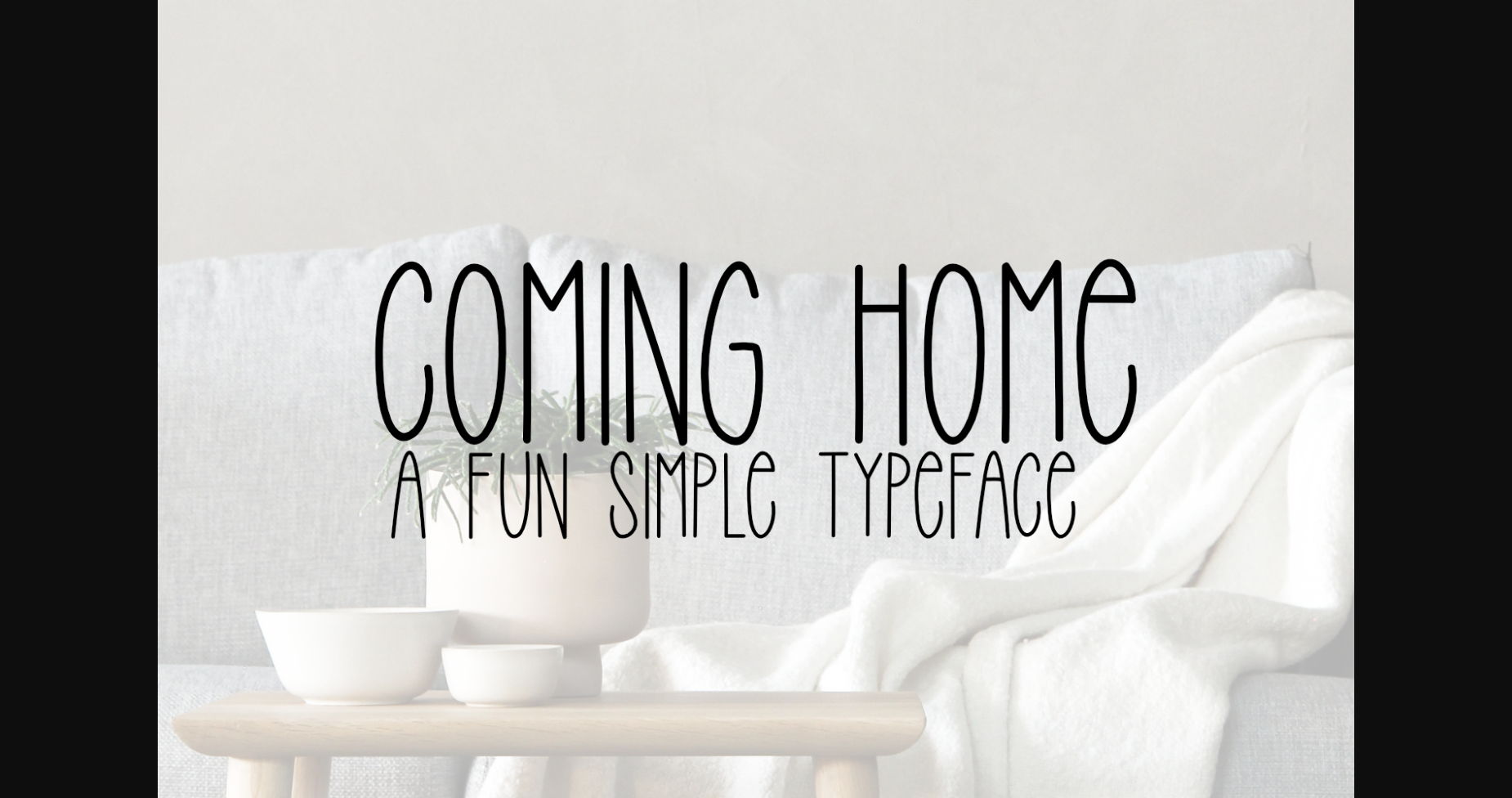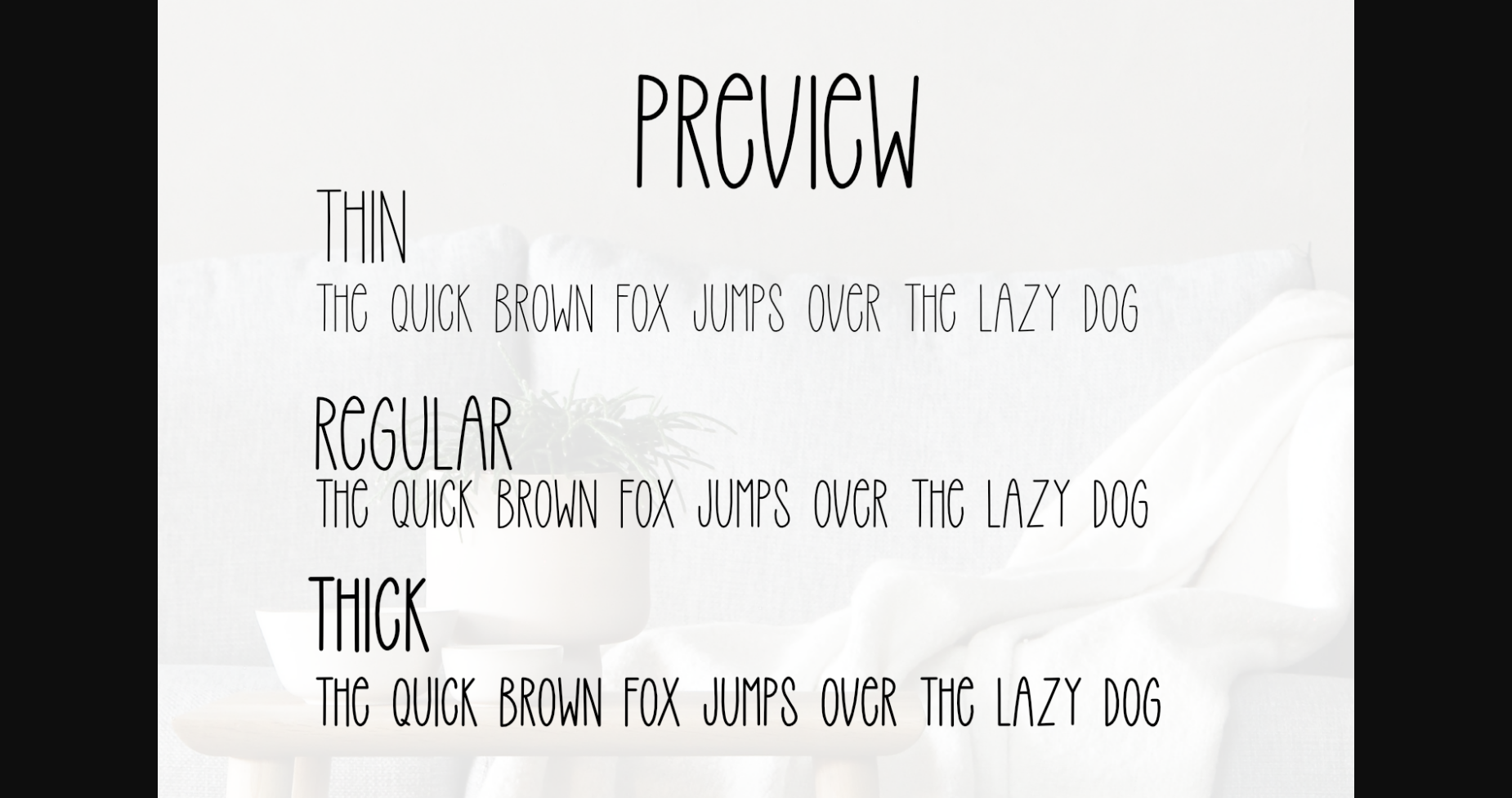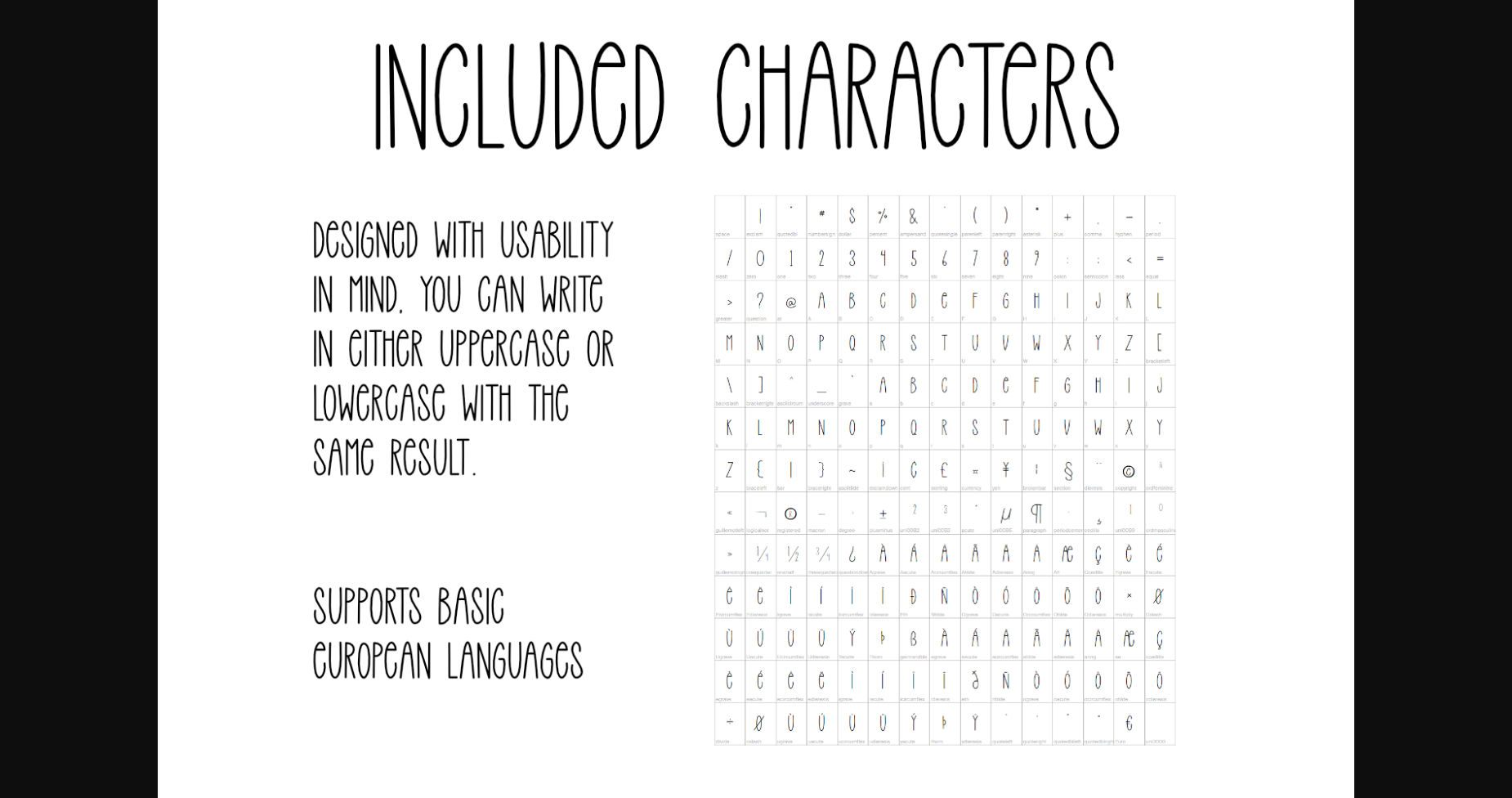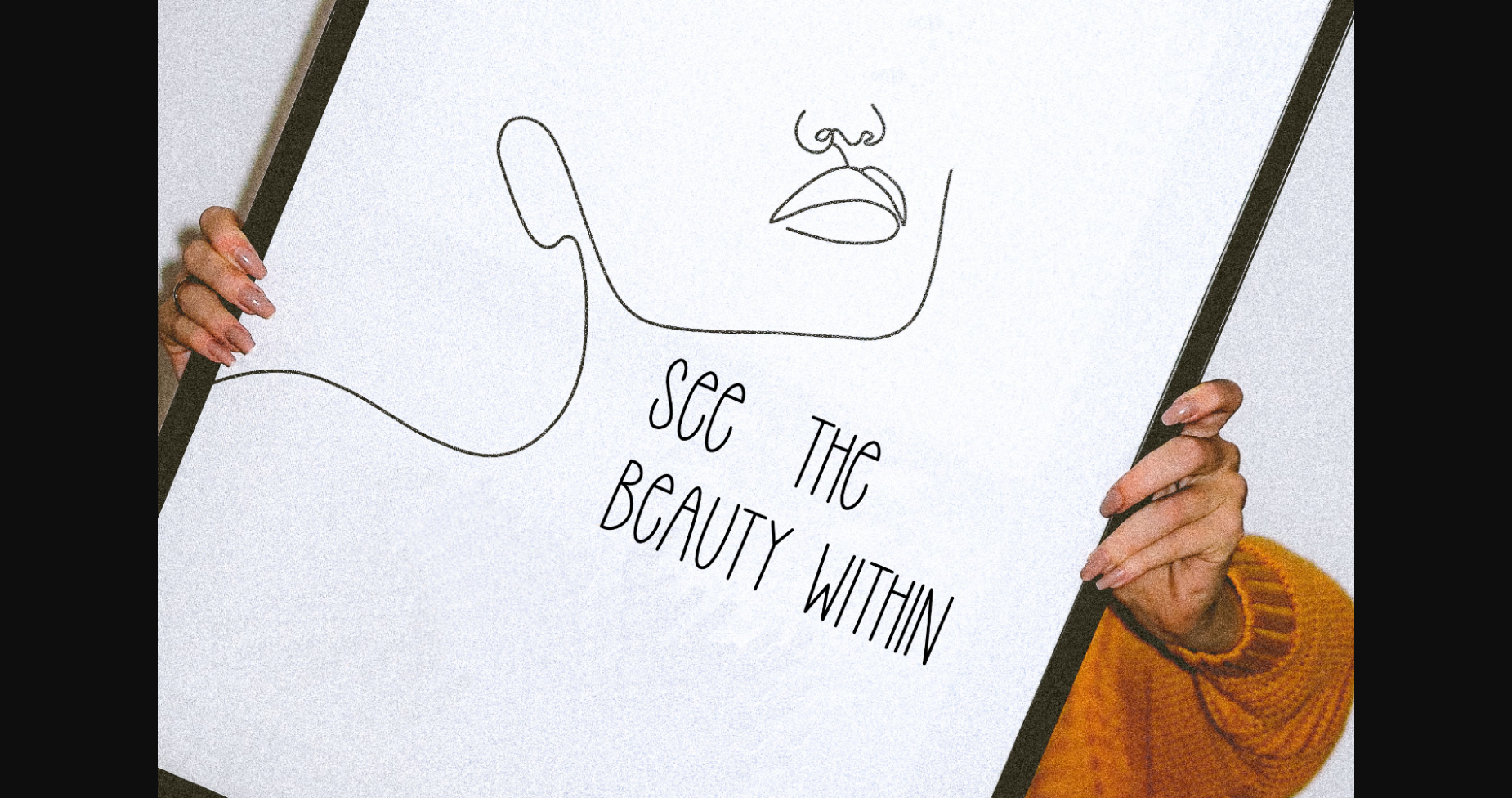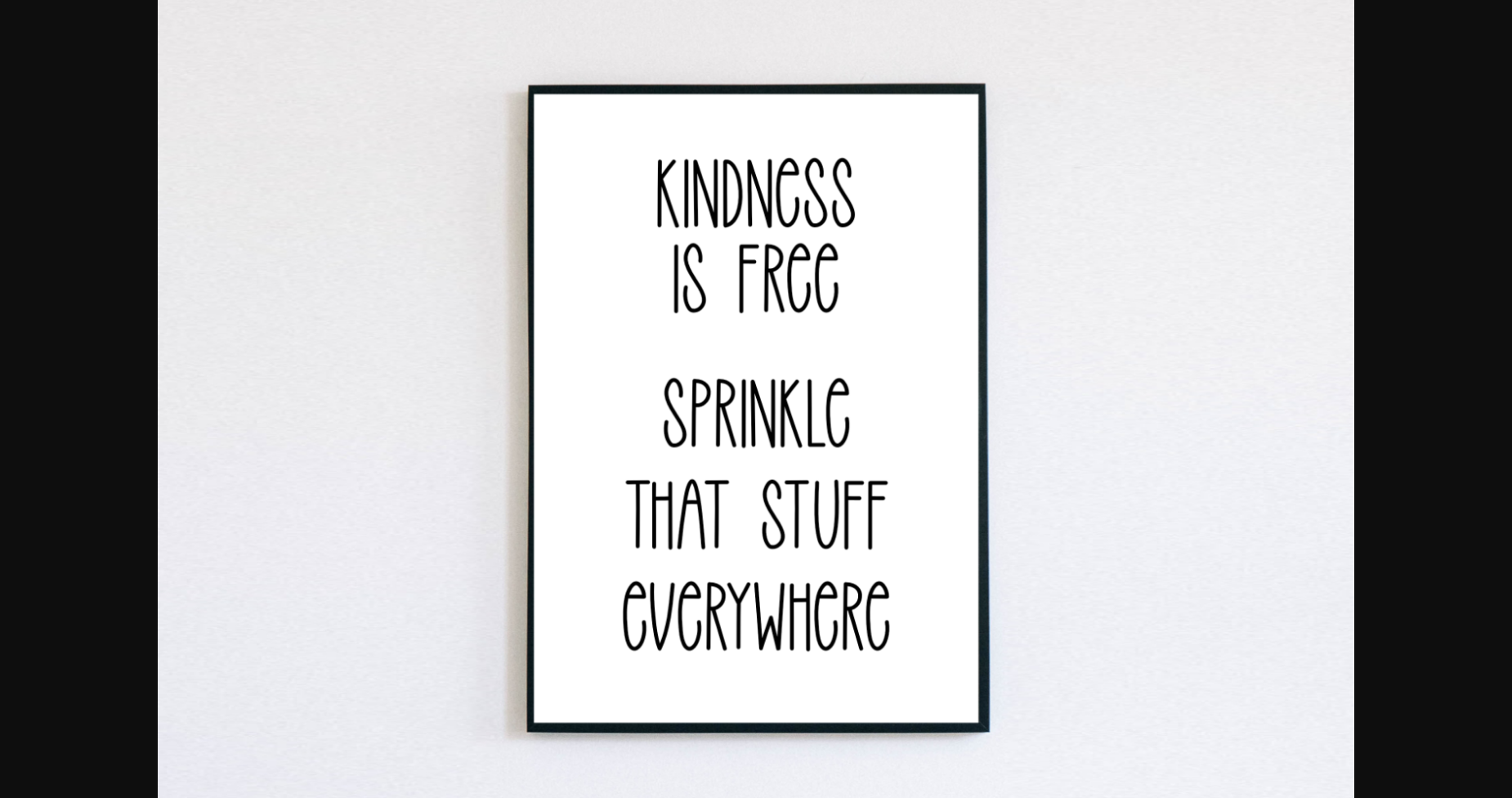
About Coming Home Font
Coming Home is a thin, tall and simple lettered sans serif font. It will elevate a wide range of crafting ideas, from cards, to branding, labels and much more.